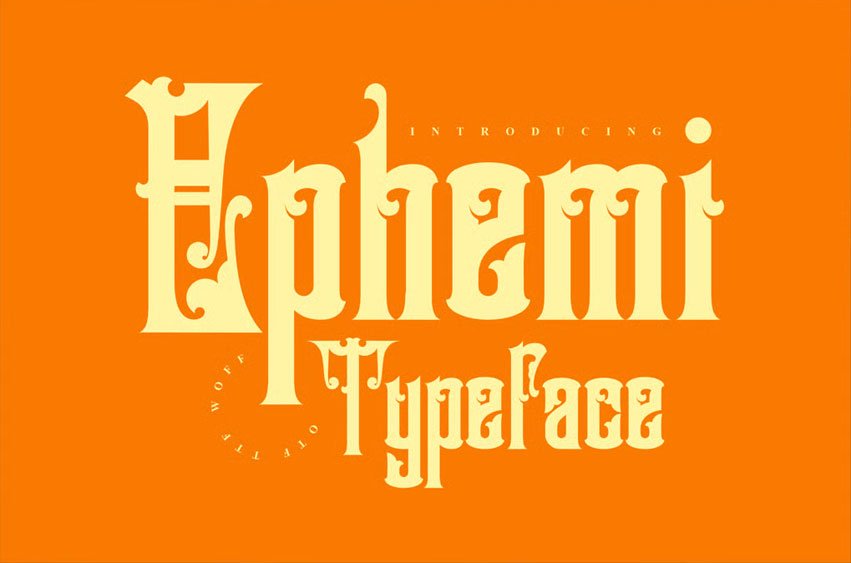
Ephemi Font captures the essence of impermanence with its delicate, ephemeral design.
The strokes are light and graceful, almost as if they could fade away at any moment, embodying the transient nature of life’s most temporary moments.
Ephemi Font Preview